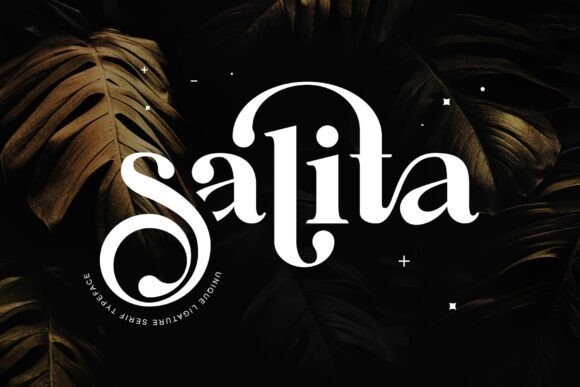
Salita Font
Salita is a beautiful and stylish serif font with a unique feel and a stunning impact. It will add a luxury spark to any design project that you wish to create! This font is PUA encoded which means you can access all the glyphs and ligatures with ease!